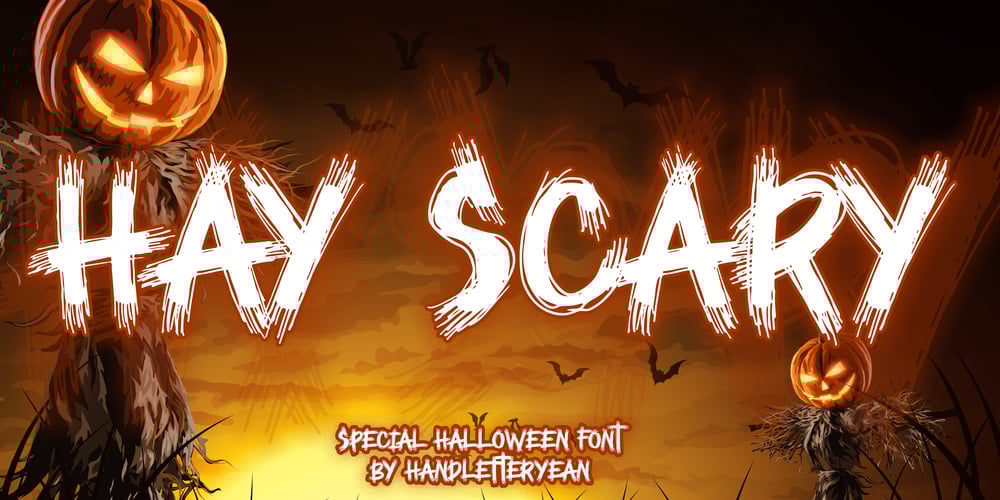
Hay Scary Font Family was designed by Yean Aguste and published by HandletterYean. Hay Scary contains 1 styles and family package options. This is a Halloween-themed font. Its style will make your creativity stands out in your designs. Feel free to use it on any kind of creative design, and cherish your Halloween with this font to make it more festive.